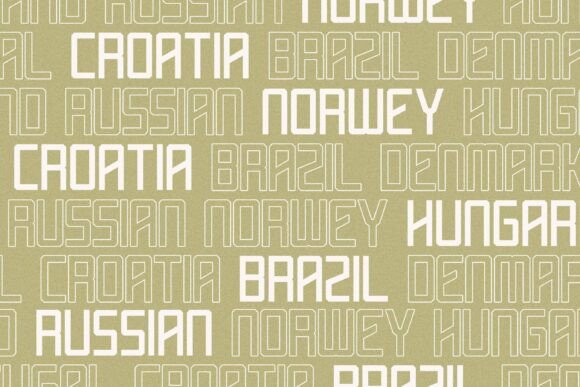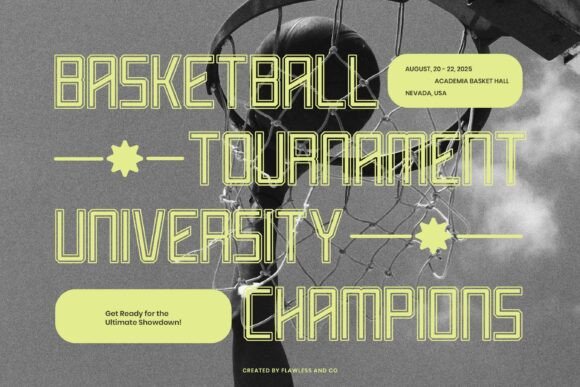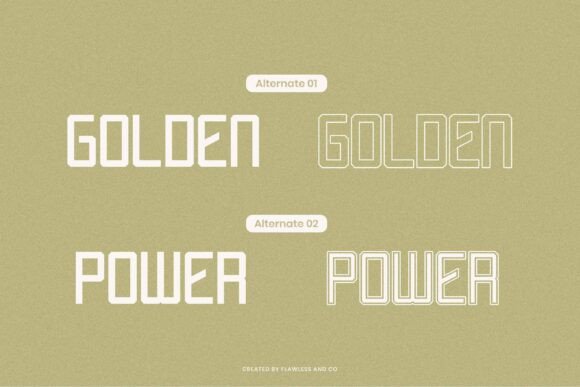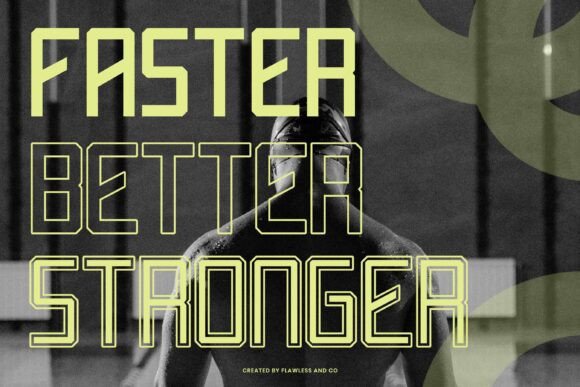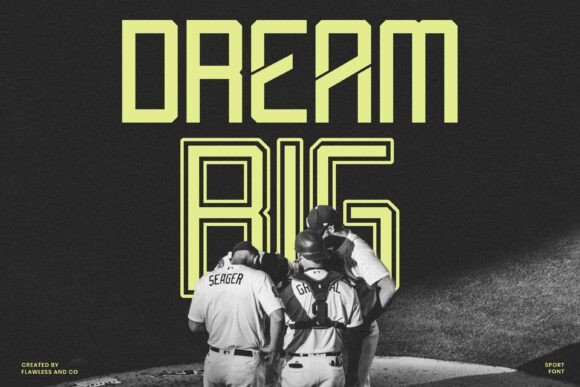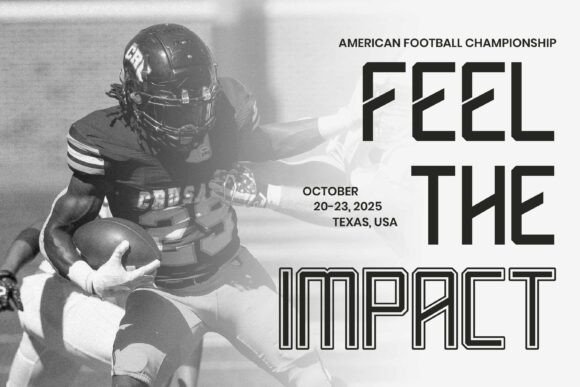
Introduction to Power Balboy Font
Have you ever been stuck in a design rut, searching for the perfect font to capture the essence of your project? I know I have. It was on a particularly grueling sports branding project that I stumbled upon the Power Balboy Font – and it was love at first sight. The combination of strength, energy, and motion it brought to my design was unmatched.
As designers, we’re constantly on the lookout for high-quality design resources that can elevate our creative projects. The Power Balboy Font is a game-changer, offering a solid structure, sharp edges, and an athletic style that’s perfect for sports branding, team logos, and dynamic headlines. With its transparent background and free download option, it’s a valuable addition to any designer’s toolkit.
Key Features of Power Balboy Font
- High-quality design resource for creative projects, perfect for modern and futuristic themes
- Transparent background, allowing for easy customization and seamless integration into various design elements
- Comes in a single size, with a resolution of 1024×1024 pixels, ensuring crisp and clear display across various devices
- Unique characteristics include bold and playful letterforms, ideal for adding a touch of personality to any design
- Power Balboy Font is a versatile design resource suitable for a wide range of applications, from digital graphics to print materials
Honest Review: Power Balboy Font
I recently stumbled upon the Power Balboy Font, and I’m excited to share my thoughts on this design resource. As a designer, I’m always on the lookout for high-quality fonts that can elevate my creative projects.
Here’s what I like about the Power Balboy Font:
- ✨ Unique design: The font has a bold, energetic feel that’s perfect for making a statement in your design.
- ✨ Transparent background: The font’s transparent background makes it easy to layer over other design elements.
- ⚠️ Limited font styles: The Power Balboy Font only comes in a few font styles, which might limit its versatility.
- ⚠️ Not ideal for small text: Due to its bold design, the font may not be the best choice for small text sizes.
Overall, I think the Power Balboy Font is a great addition to any designer’s toolkit. While it may have some limitations, its unique design and free availability make it a valuable resource for creative projects.
The Power Balboy Font is ideal for use in a variety of creative projects, including branding, marketing materials, and digital products. It’s also a great choice for creating visually appealing social media graphics and blog posts.